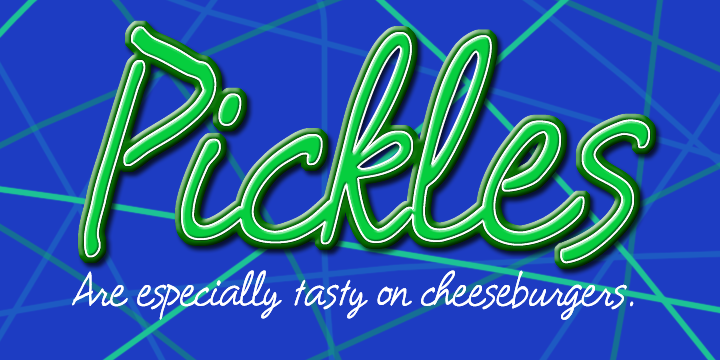
• Robs Pickles
It’s fun and cute and light hearted. With clean connectors, this script is great for scrapping, and situations that require a less than formal look.